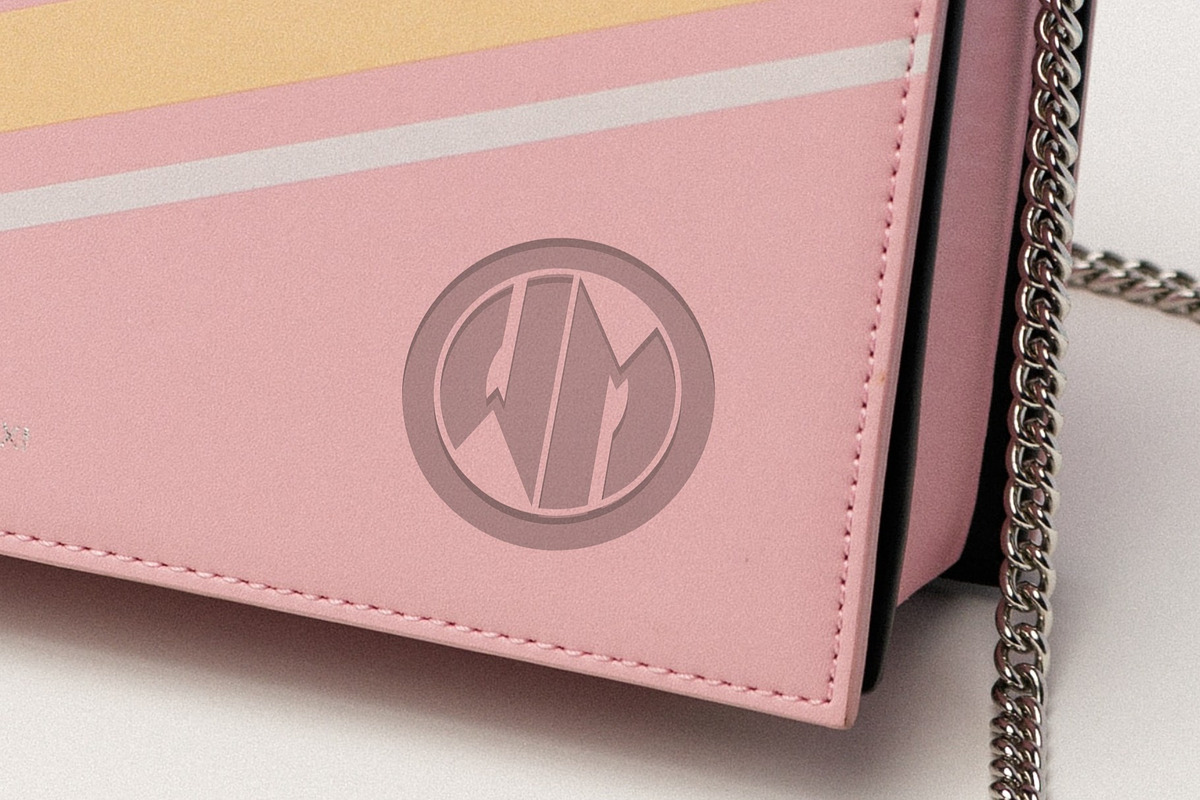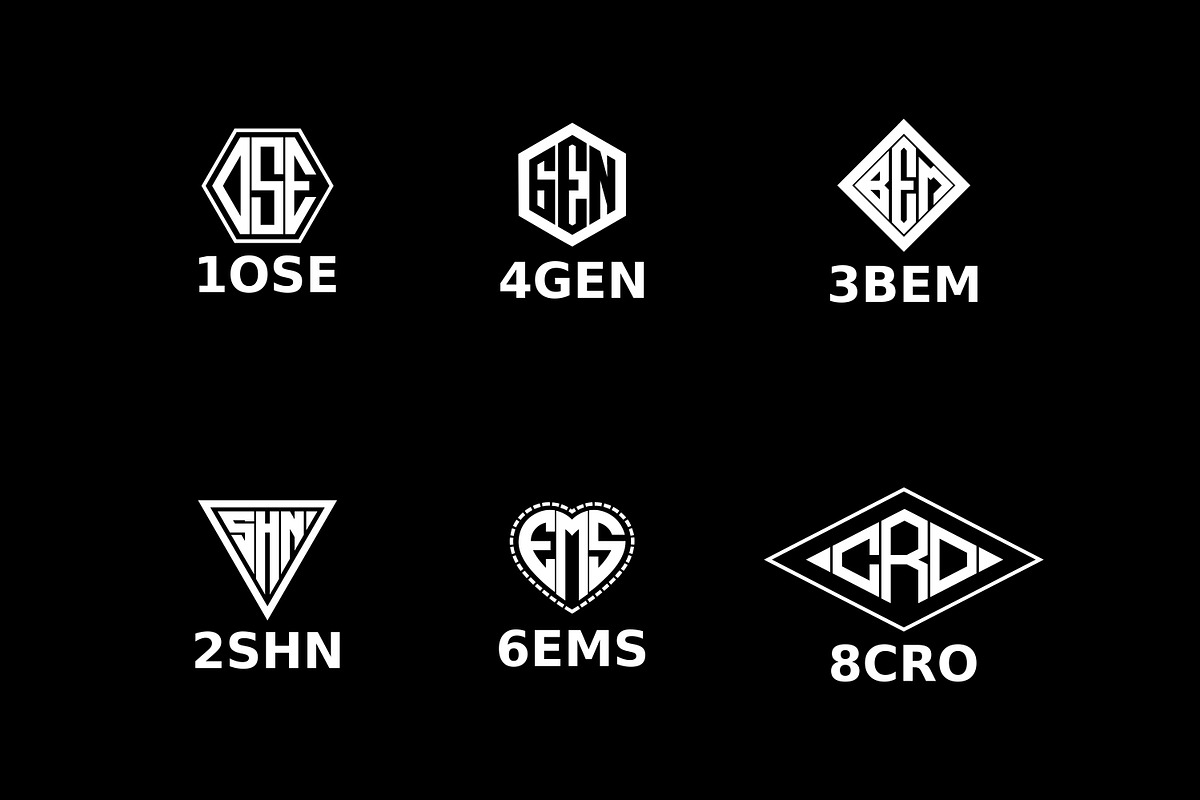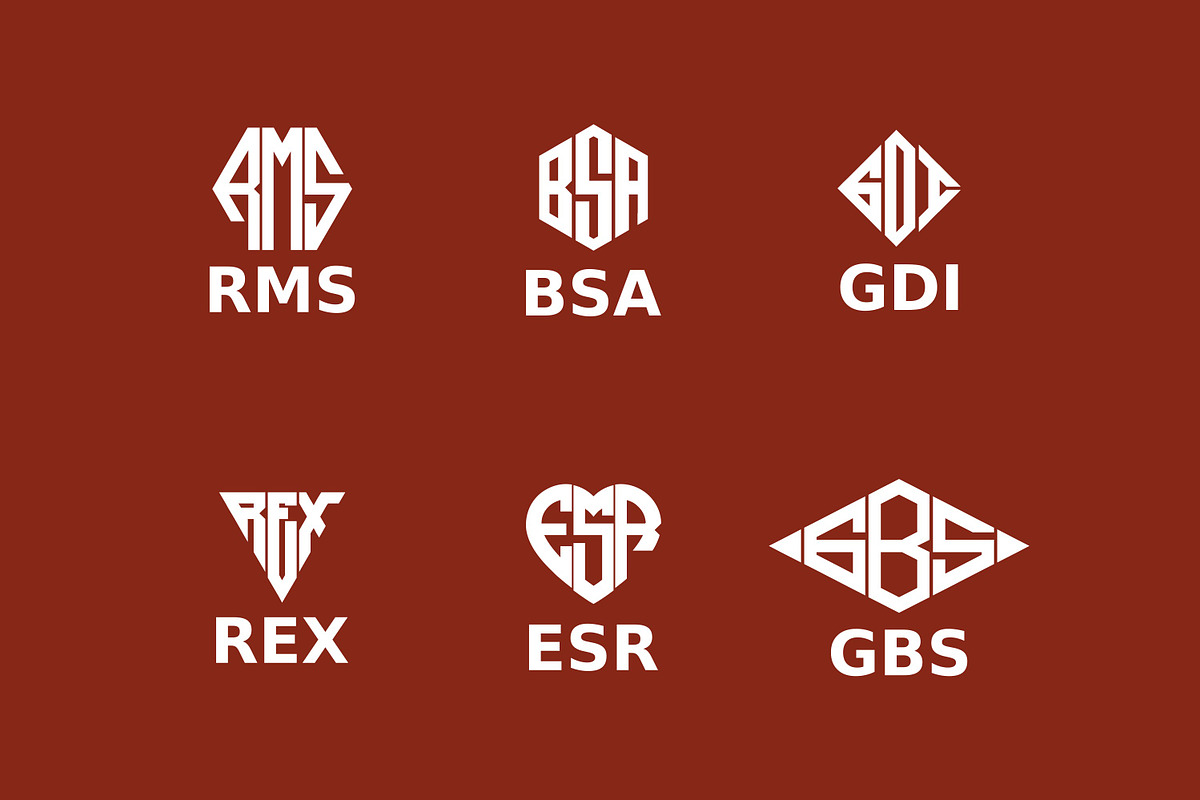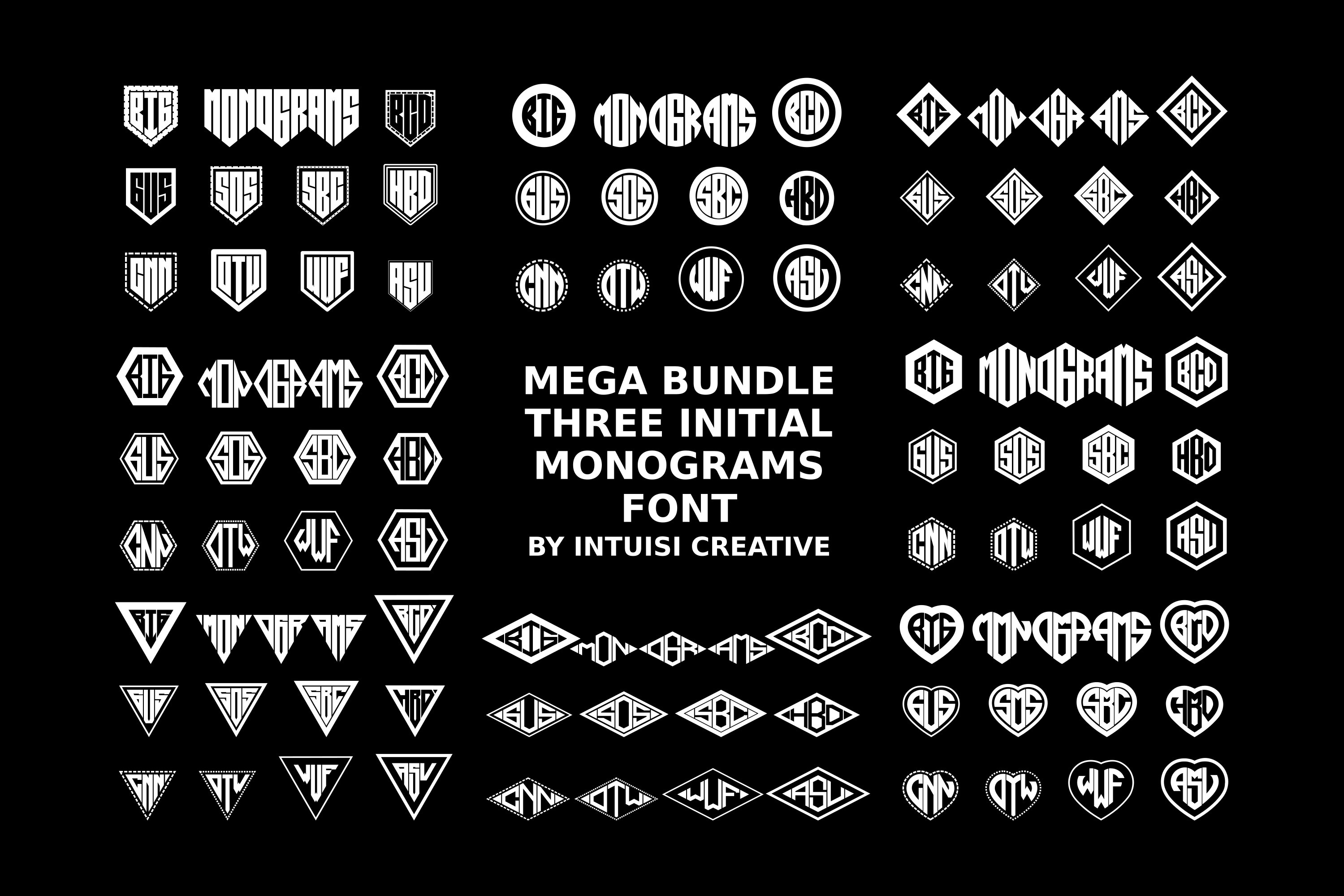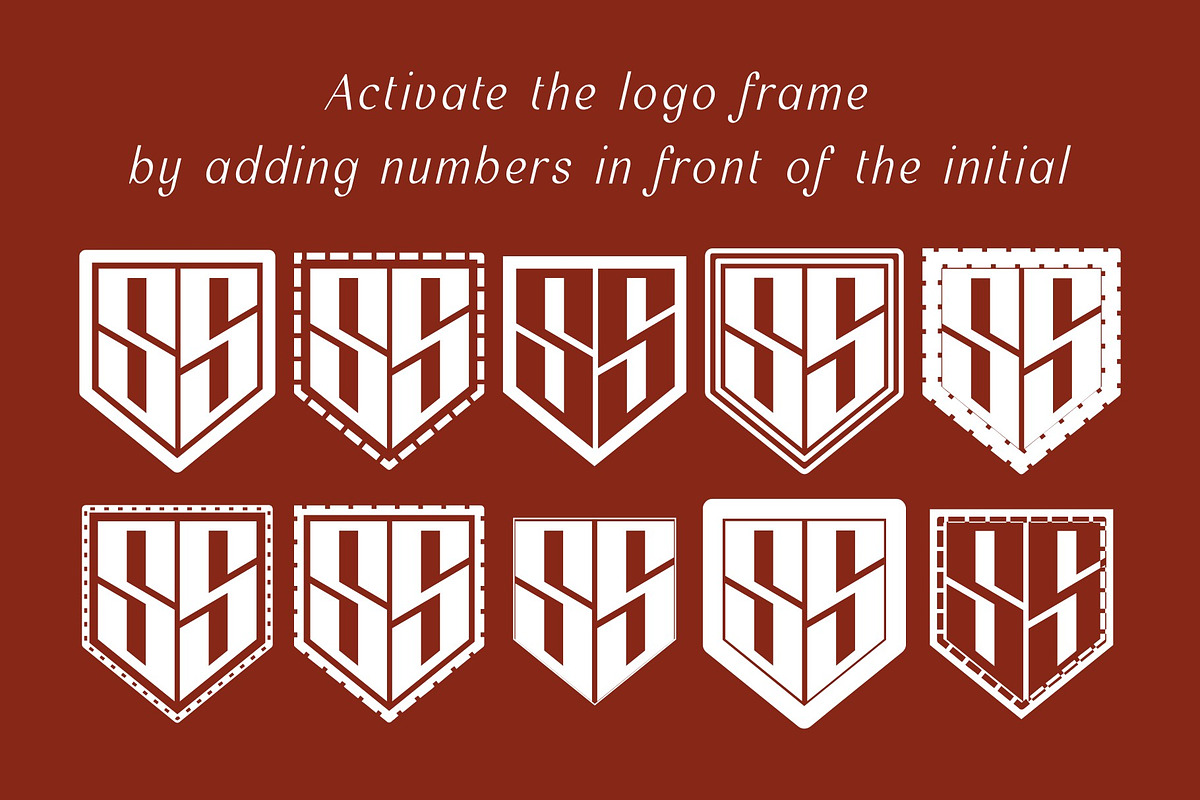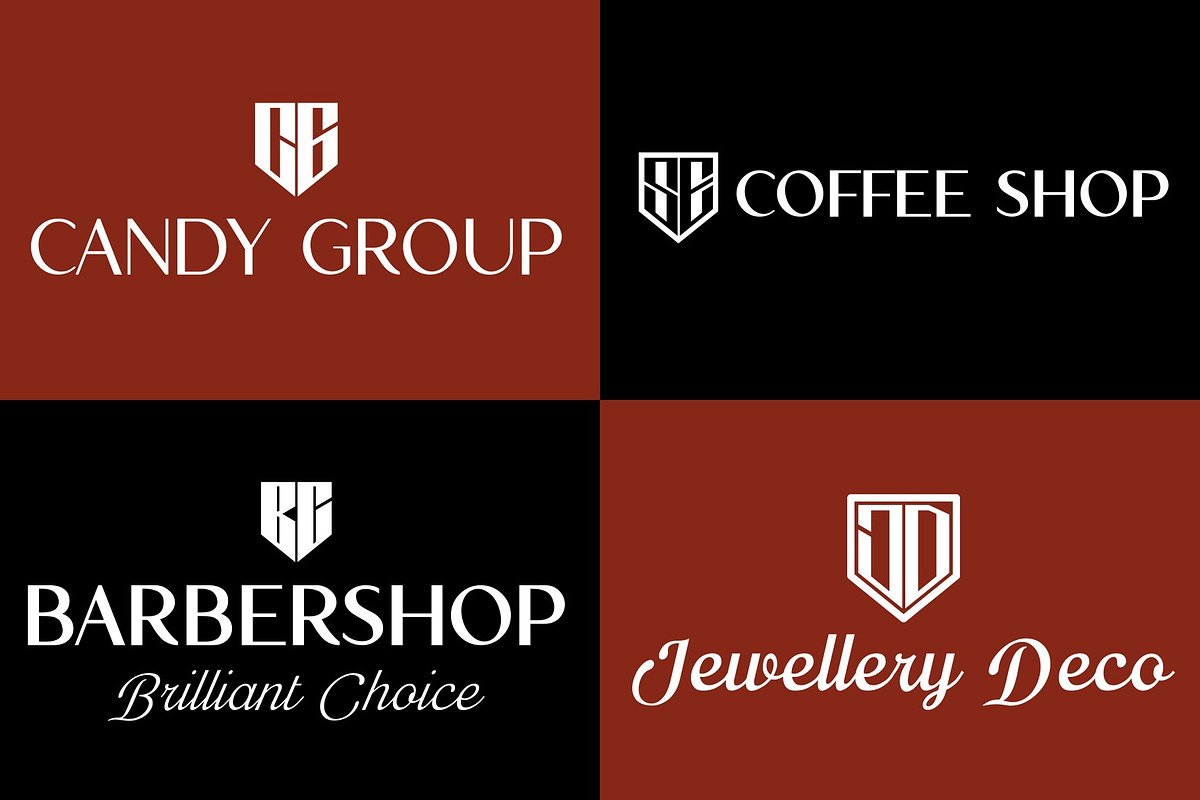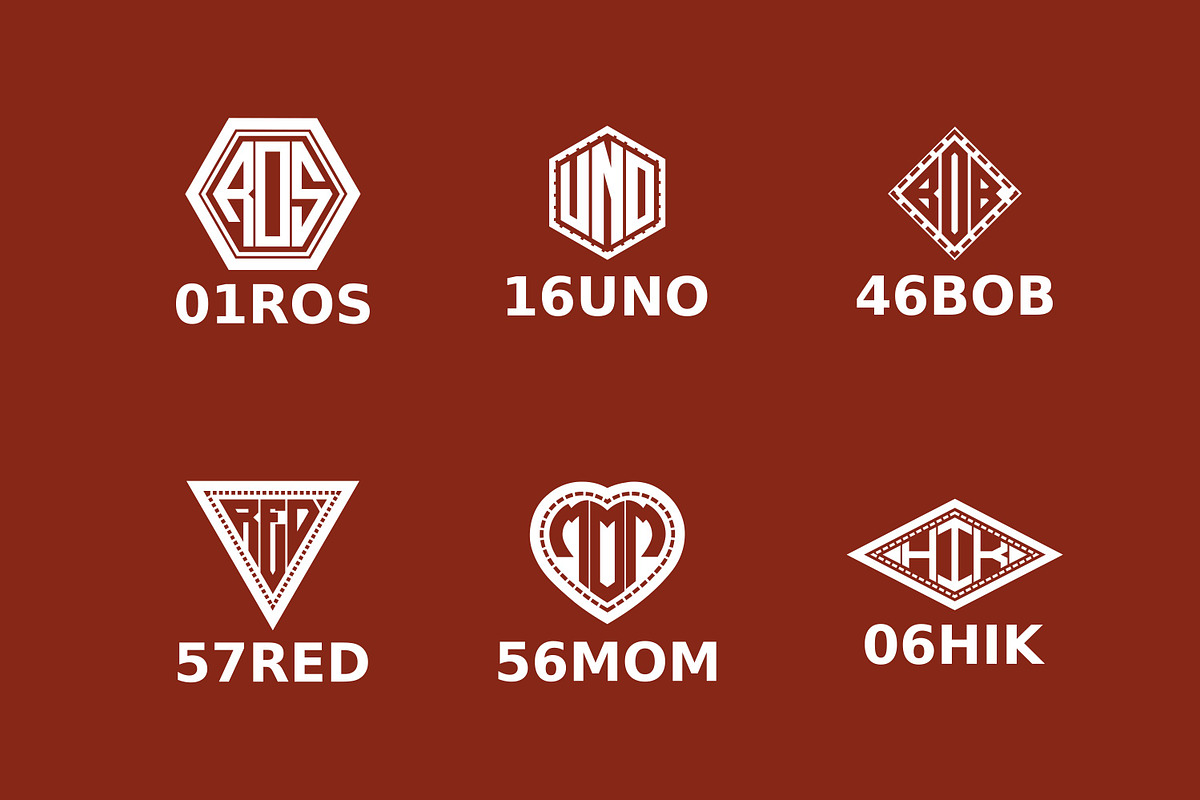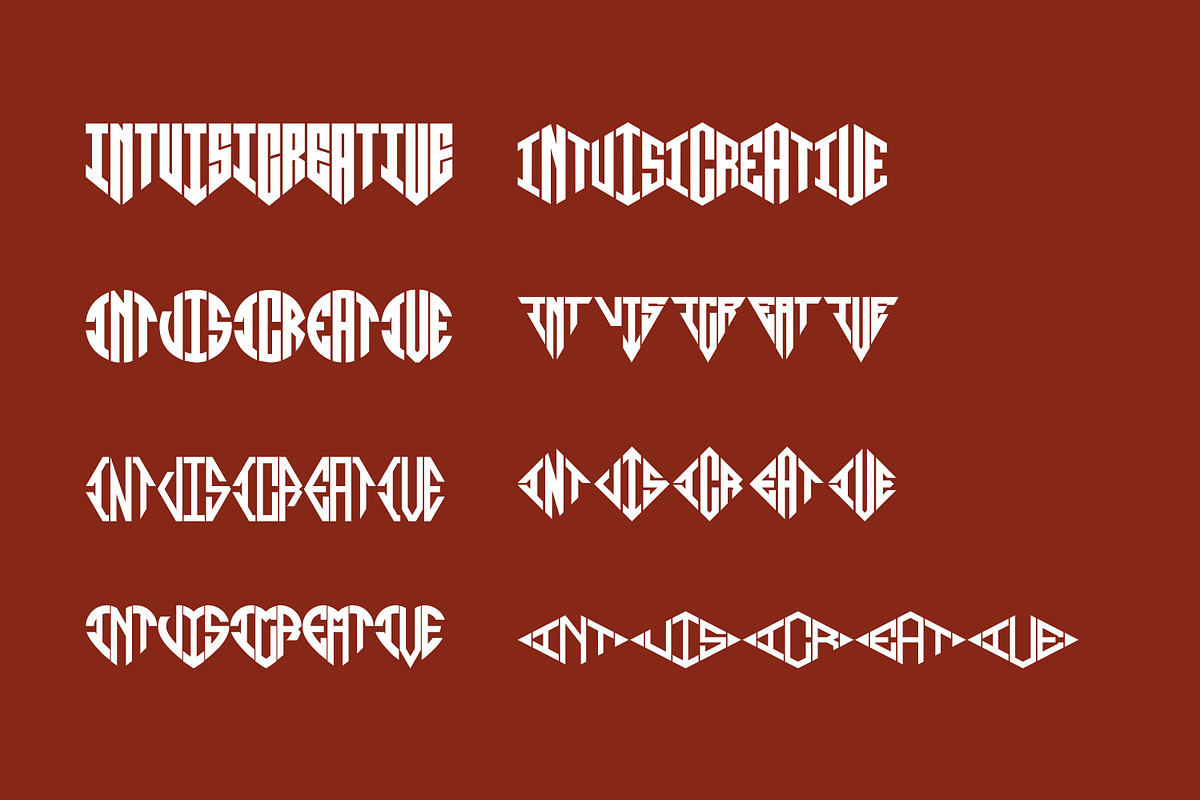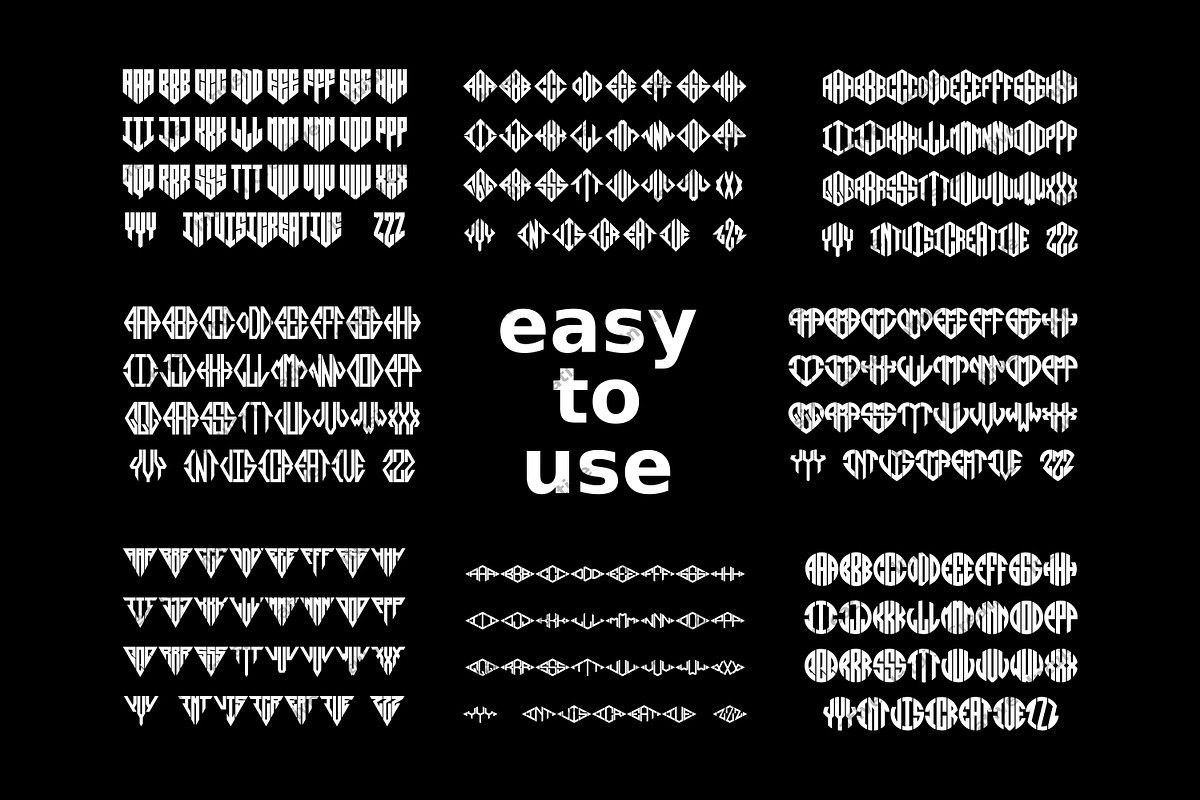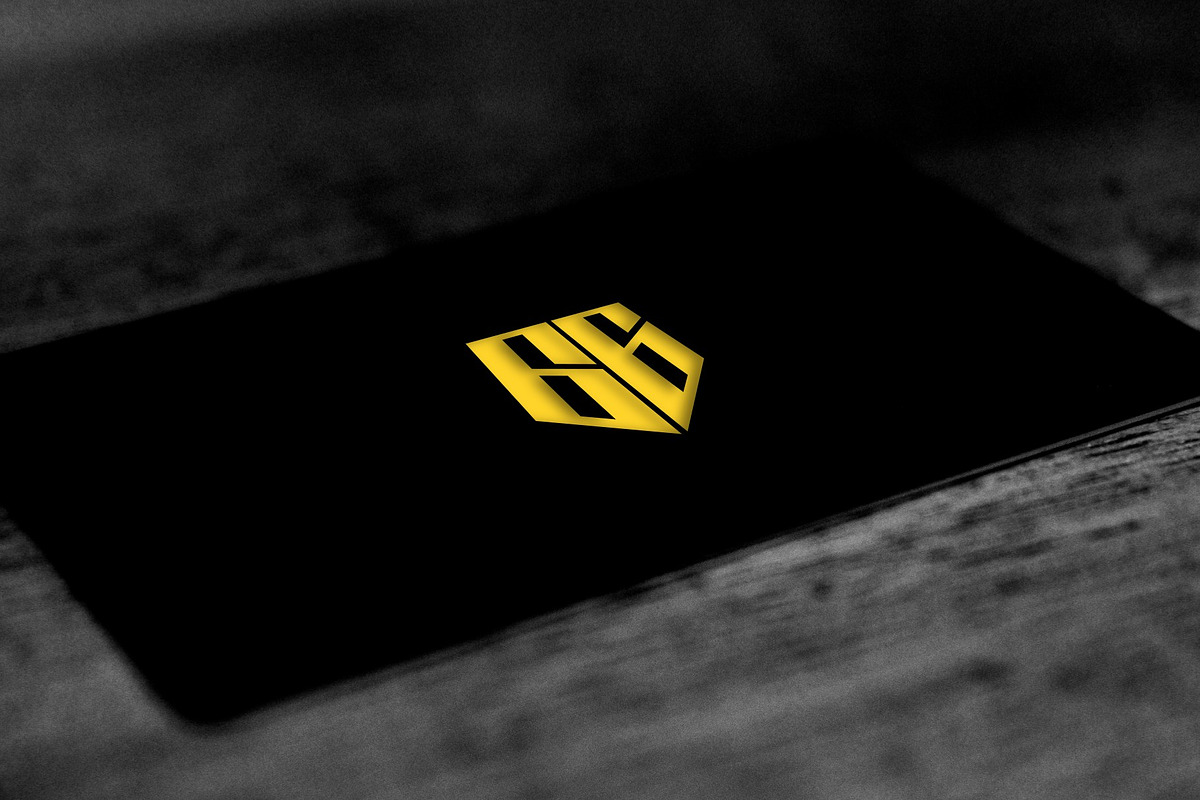
Mega Bundle! Monogram Logo Fonts
Bundle Monogram Logo Font with OpenType magic that can adjust to front and back letters, there are 10 frame variations that you can access at numbers 0-9 how to activate it simply by adding a number in front of your initials, typing something (0ABC - 9ABC) it will automatically compose . you can use it on any Logo project it is perfect to add to your collection.
Including
- Pentagram
- Triangle
- Love
- Hexagonal
- Hex
- Diamond
- Circle
- Width Diamond